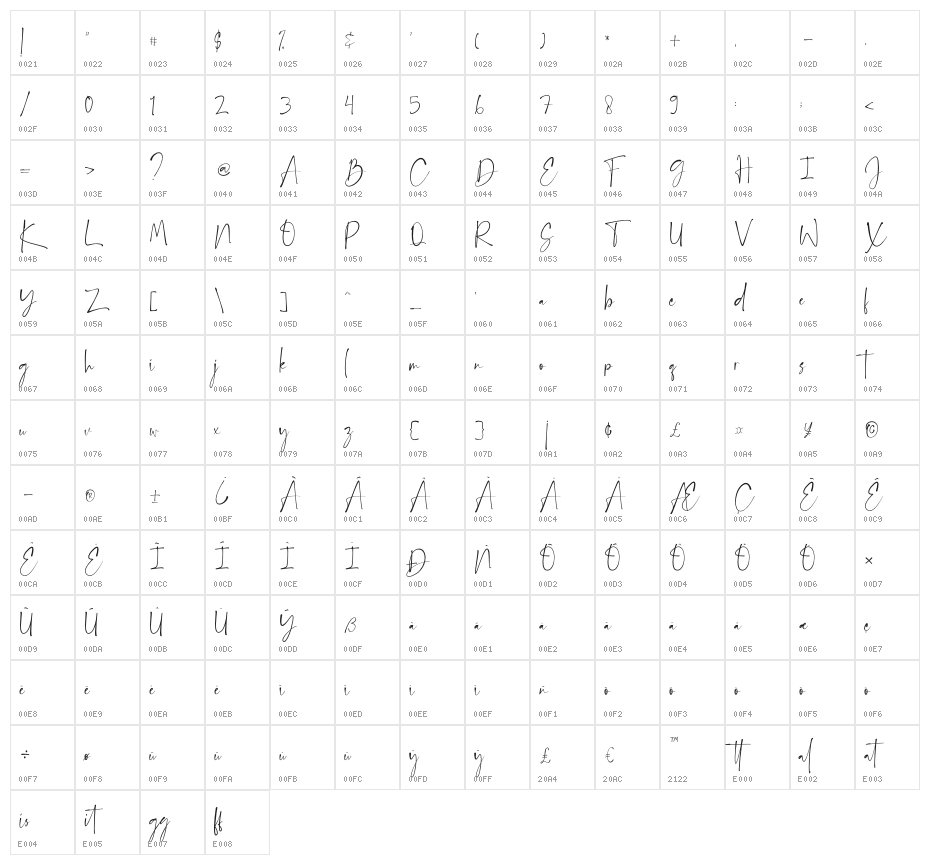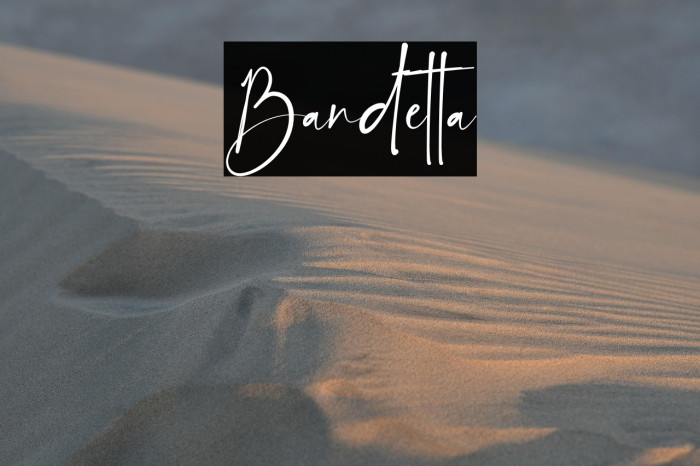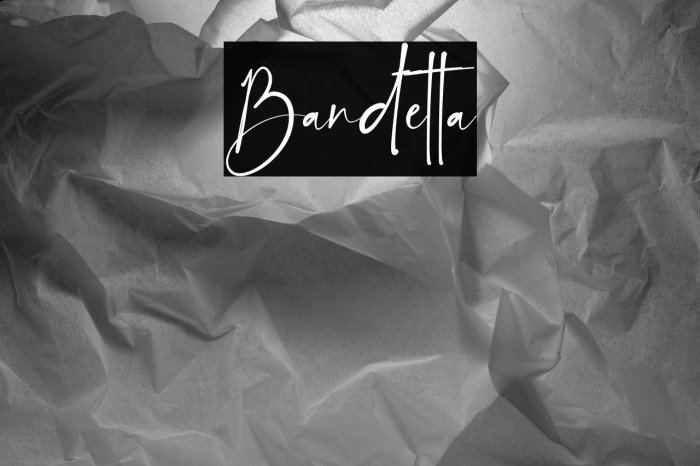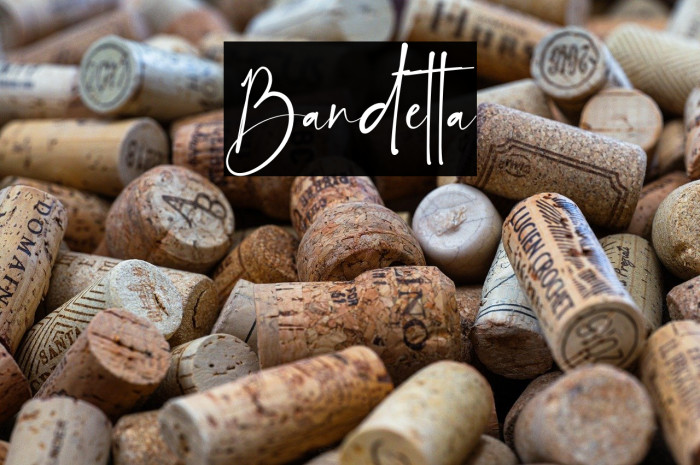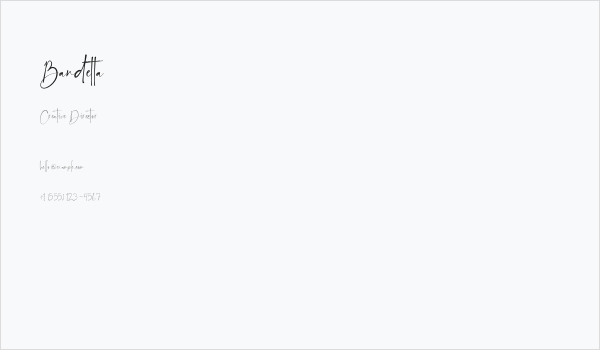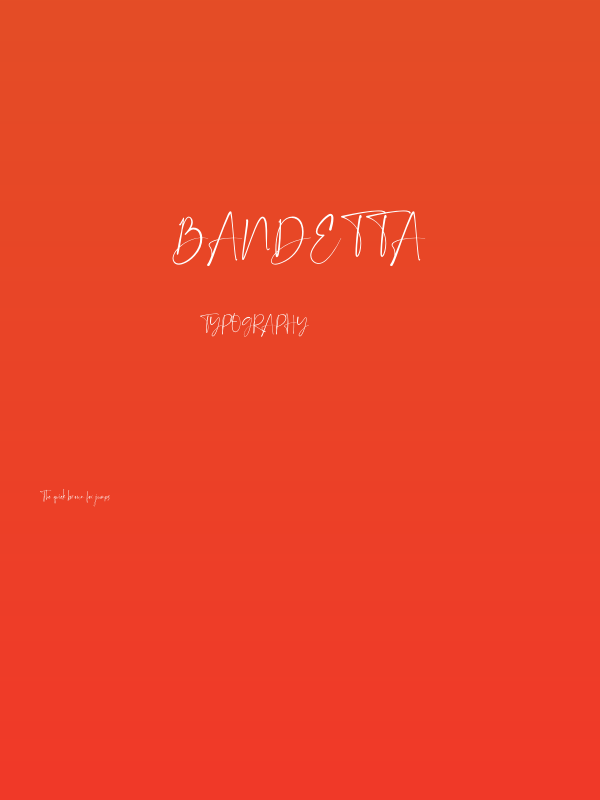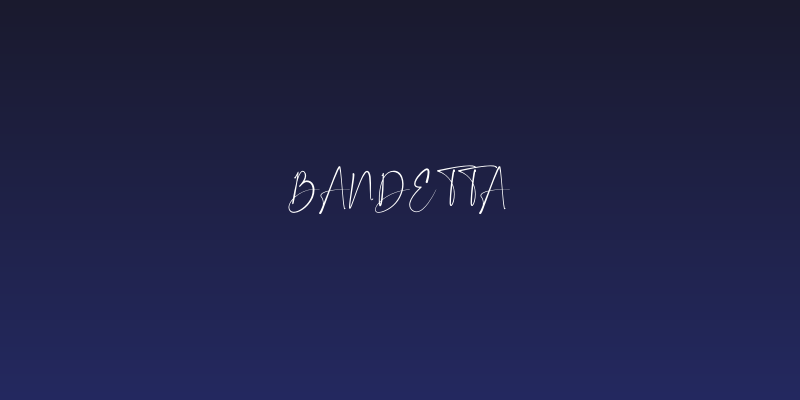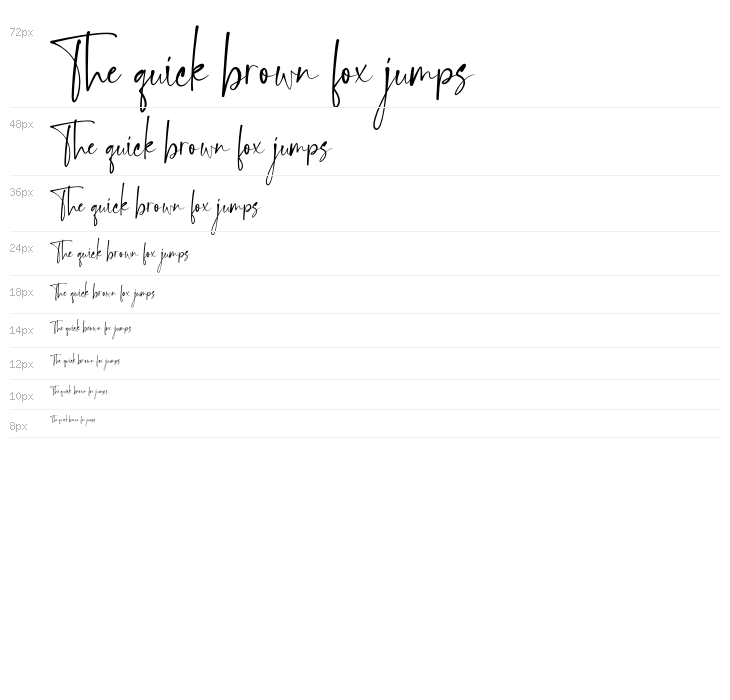
Bandetta Font
Bandetta Description
This font exudes a lively and expressive character, with its handwritten style that mimics the fluidity and spontaneity of natural handwriting. The uppercase letters are bold and dynamic, featuring a mix of thick and thin strokes that add a sense of movement and energy. The lowercase letters maintain this fluidity, with elegant loops and curves that create a harmonious flow. Numbers and special characters are crafted with the same attention to detail, ensuring consistency across all elements. The overall design is both playful and sophisticated, making it suitable for creative projects that require a personal touch.